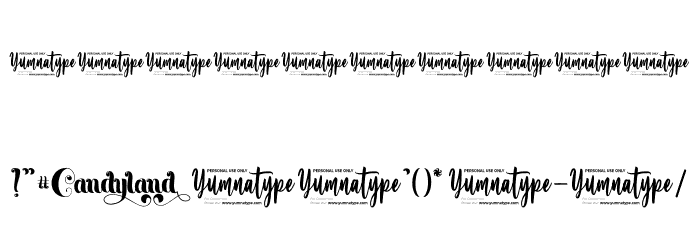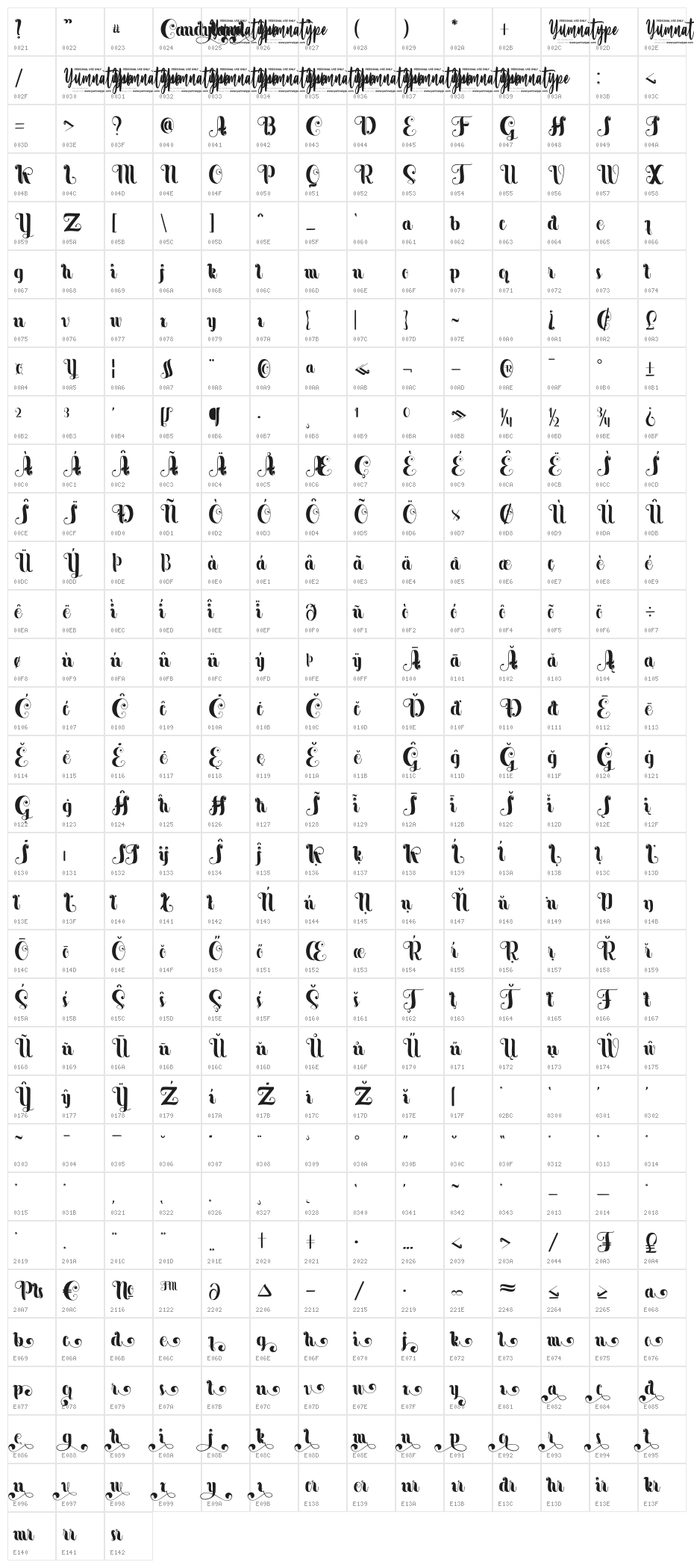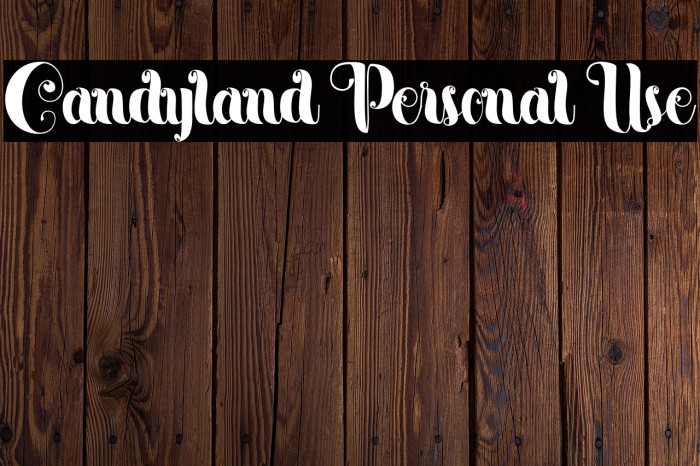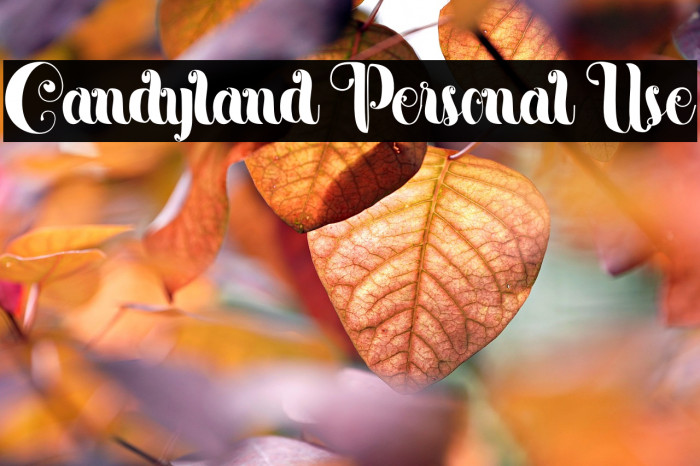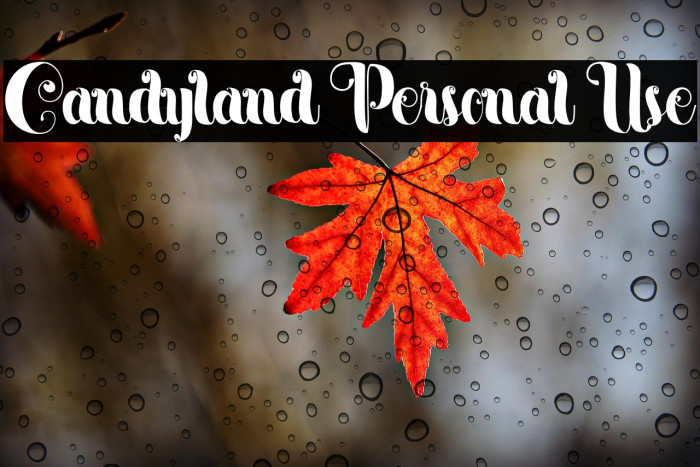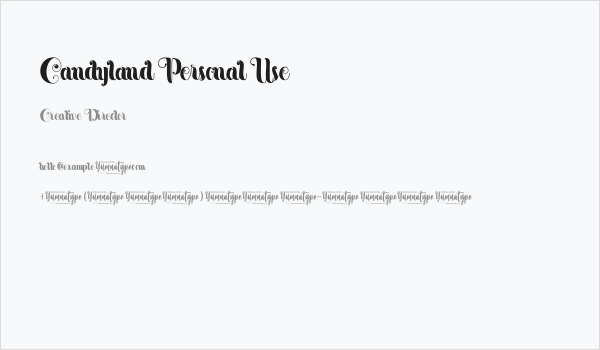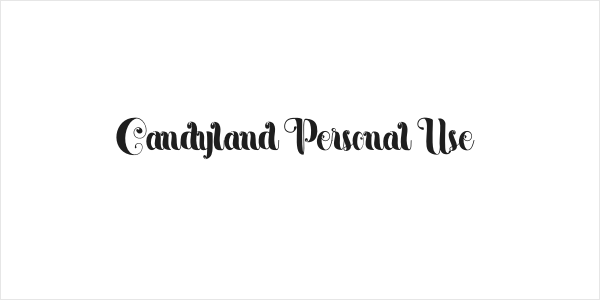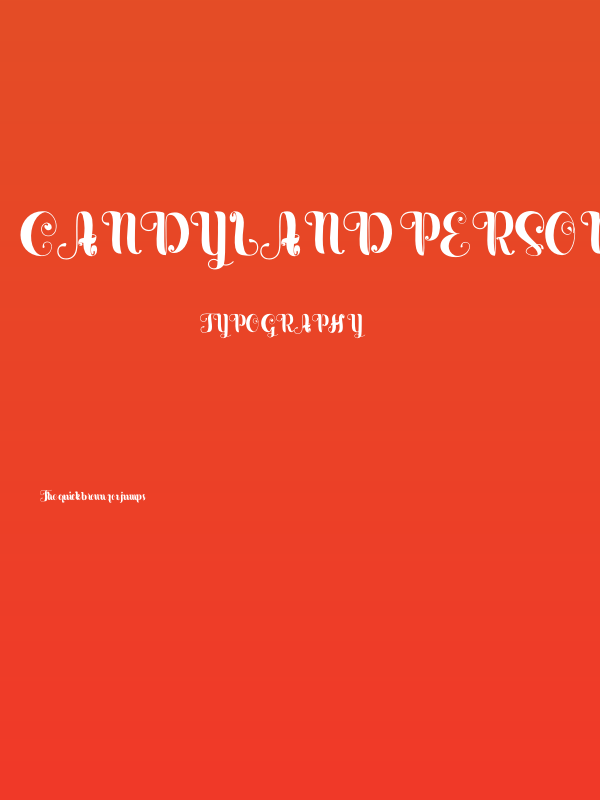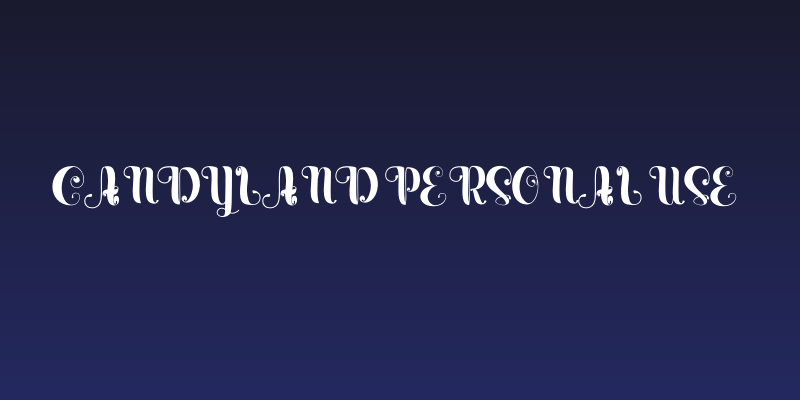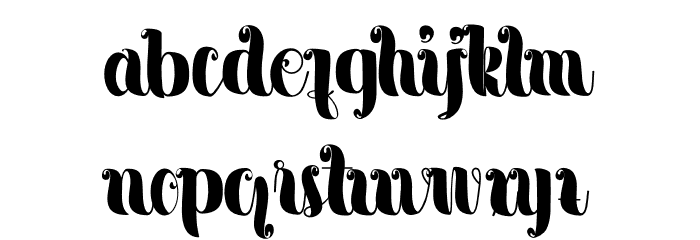
Candyland Personal Use Font
Candyland Personal Use Description
This font features a playful and whimsical design with a decorative flair. The characters are bold and curvaceous, with intricate swirls and loops that add a sense of movement and fun. The uppercase letters are particularly ornate, while the lowercase letters maintain a consistent style that complements the overall aesthetic. The numbers and special characters follow the same decorative theme, making the font versatile for various creative applications. Its unique style makes it stand out, perfect for projects that require a touch of elegance and playfulness.
Use CaseHeadlines, Logos, Invitations
Proposed ProjectsIdeal for children's book covers, playful branding, party invitations, and creative posters.